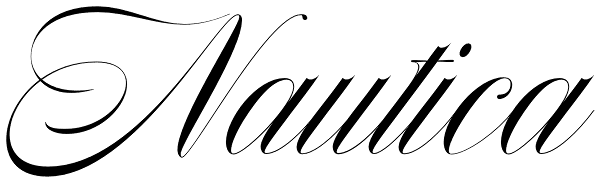
Nautica
Nautica is a new script typeface based on Copperplate’s ductus. High in contrast, it is a very original type with a strong character. With over 1000 glyphs and extensive language support Nautica offers full professional typographic features...